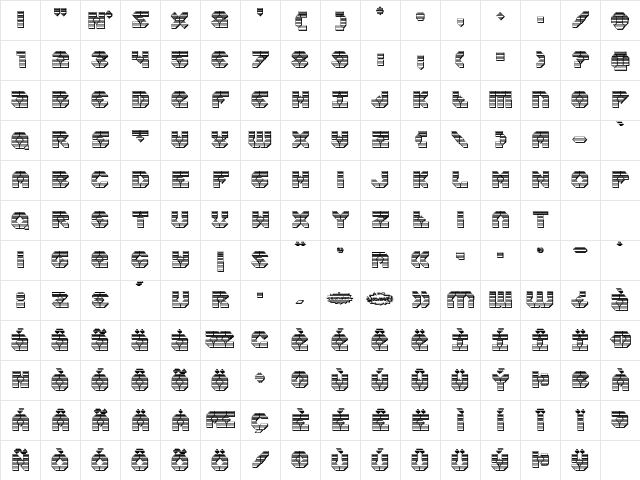
Complete Zoom Runner Chrome Regular glyph index. Displaying only characters natively supported by Zoom Runner Chrome Regular font.
Zoom Runner Chrome is a composed and adaptable typeface that performs quietly and consistently across a wide range of design contexts.